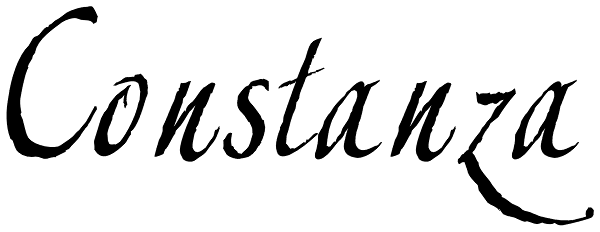
Constanza
Constanza is a joining high-contrast-script, extreme ascenders and descenders for added personality some descenders swing under its neighboring letters. The font can be used together (mixed) with Dalia and Elisara.
Constanza Font